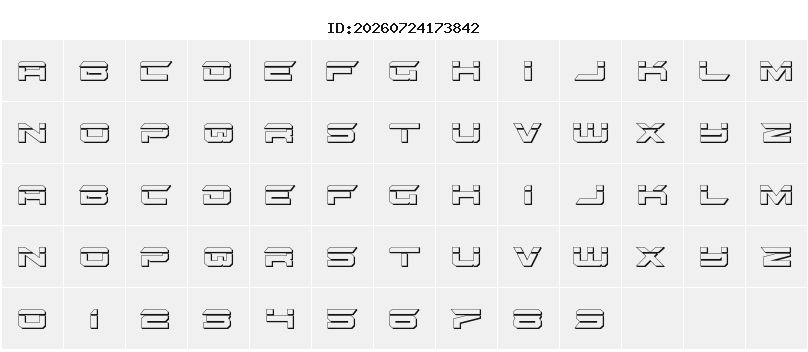
Gypsy Killer Bullet Preview
• Font Name: Gypsy Killer Bullet
• Full Font Name: Gypsy Killer Bullet Regular
About Gypsy Killer Bullet.ttf
Gypsy Killer Bullet.ttf is a modern, elegant sans-serif font designed for ultimate readability and visual harmony. Perfect for branding, headlines, web design, and print materials.